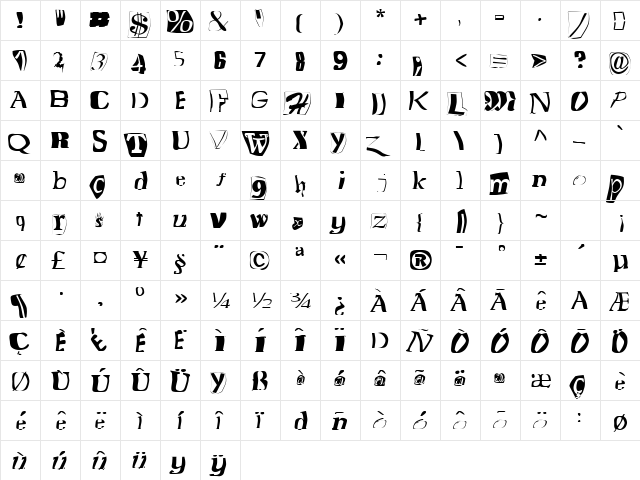
FZ WARPED 15 Normal
Design Context for FZ WARPED 15 Typeface
FZ WARPED 15 is a composed and adaptable typeface that performs quietly and consistently across a wide range of design contexts.